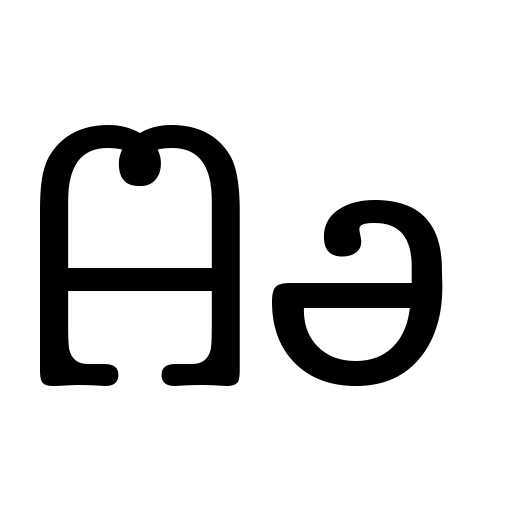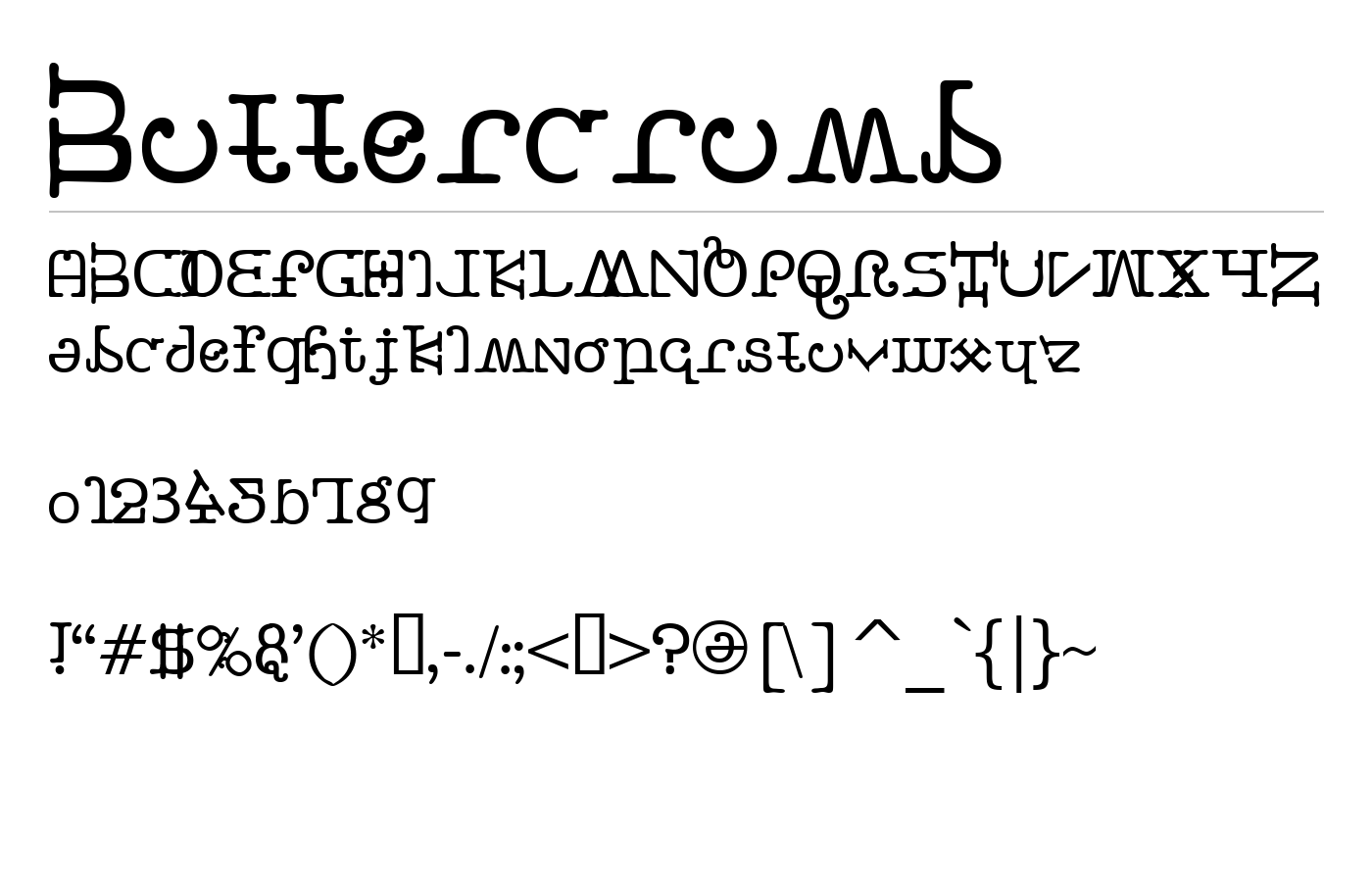
Buttercrumb is a quirky, decorative serif font featuring thin, uniform strokes with rounded slab-like terminals that give it a playful, handcrafted feel. Its unique, irregular letterforms combine a mix of sharp angles and softened curves, making it ideal for creative branding, artistic projects, and eye-catching headlines where a distinctive, whimsical character is desired. This font shines in designs that seek to stand out with charm and personality.
Buttercrumb Font